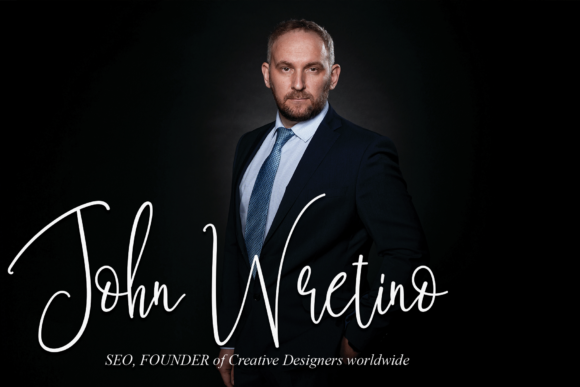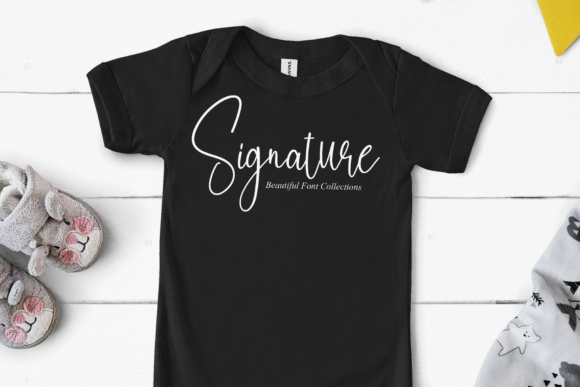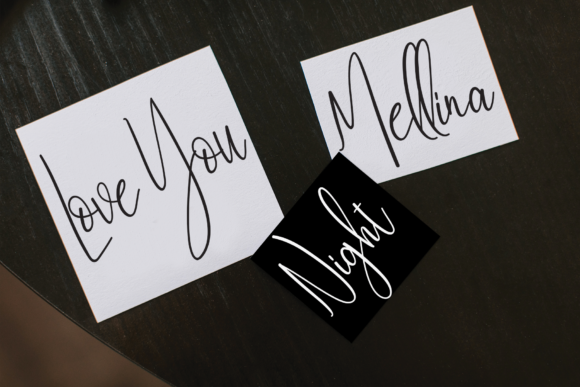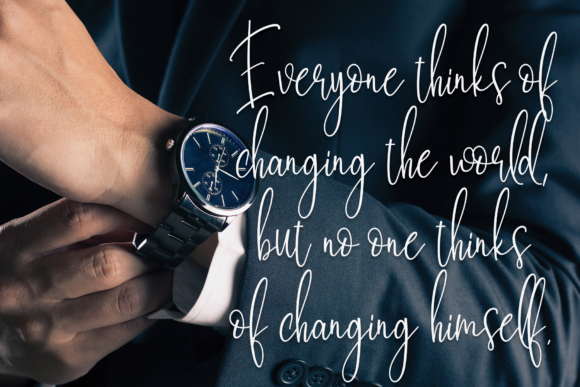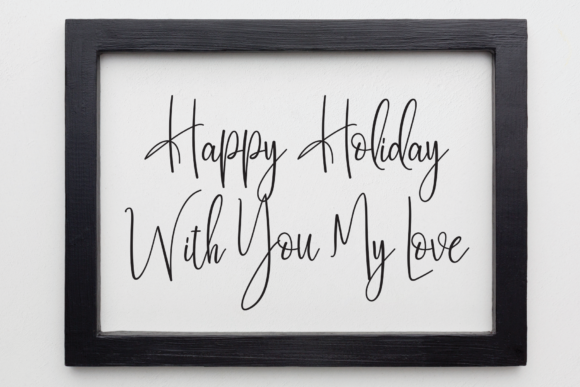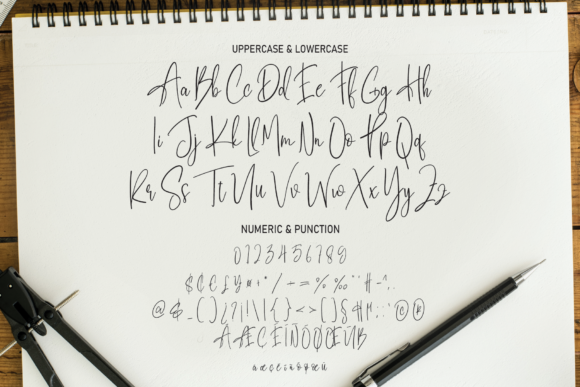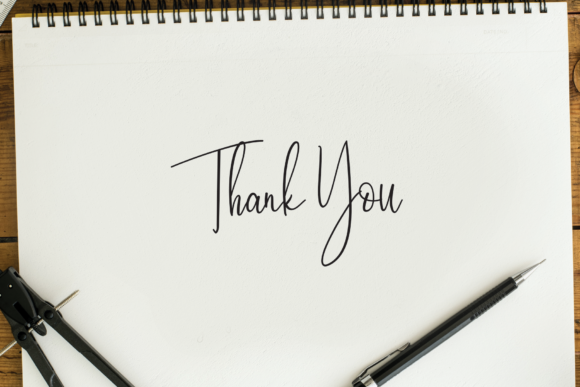
Bestie Signature Font
About Bestie Signature Font
Bestie Signature is a slender and fluid script font that exudes a sense of sophistication and charm. Its slim and smooth letterforms make it an excellent choice for a wide range of branding projects, adding a touch of elegance to logos, t-shirt designs, creative products, and more.
Imagine using Bestie Signature for a logo design. Its graceful curves and sleek lines can help create a memorable and refined brand identity. Whether it’s for a luxury fashion brand, a beauty salon, or a high-end restaurant, the font’s slim and smooth script can convey a sense of class and exclusivity.
For t-shirt printing, Bestie Signature can add a graceful and stylish element to apparel designs. Whether it’s a trendy slogan, a motivational quote, or a decorative element, the font’s slim and smooth script can give the design a polished and fashionable look. It can elevate the visual appeal of the t-shirt and resonate with the wearer’s sense of style.
Creative products such as packaging, labels, and product tags can benefit from Bestie Signature’s refined and charming style. Its sleek and smooth appearance can enhance the overall visual appeal of the product, making it stand out on the shelves and conveying a sense of premium quality. Whether it’s a boutique skincare line, a gourmet beverage, or a handcrafted accessory, the font can elevate the product’s presentation.
Bestie Signature’s versatility shines in various contexts, from social media graphics to website headers, from promotional materials to advertising campaigns. Its slim and smooth script can add a touch of sophistication to any design, capturing the audience’s attention and leaving a lasting impression.
In summary, Bestie Signature is a slim and smooth script font that is perfect for branding projects, logos, t-shirt printing, creative products, and more. Its refined and charming appearance can make any design look extraordinary in a variety of contexts. By incorporating Bestie Signature into your projects, you can infuse them with a sense of elegance and elevate their visual impact.